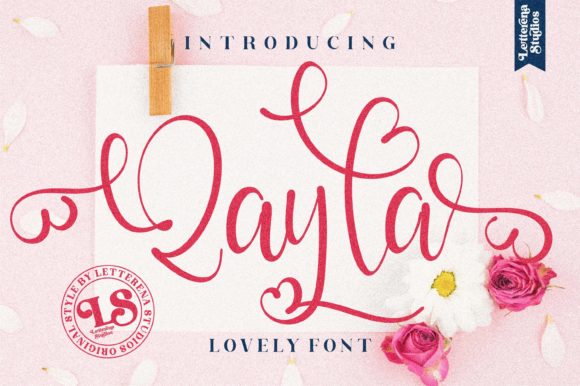
Behold Qayla Font, a captivating handwritten font that will transform your creative vision into a masterpiece. Crafted by the talented hands of Letterena Studios, Qayla embodies the essence of modern elegance and artistic flair.
Immerse yourself in the flowing strokes and delicate curves of Qayla, a script font that breathes life into your words. Experience the joy of crafting personalized invitations, greeting cards, social media posts, and branding designs that exude a touch of sophistication and charm.
With Qayla, the possibilities are endless. Unleash your creativity and turn ordinary projects into extraordinary works of art. This font is your gateway to a world of visual enchantment, where every letter dances with grace and every word carries a story.
Harness the power of Qayla to make a lasting impression on your audience. Whether you're a professional designer or a creative enthusiast, Qayla is your secret weapon to elevate your projects and leave an indelible mark on the hearts of your readers.
Don't settle for ordinary when you can embrace the extraordinary. Embrace Qayla Font today and unlock the door to a world of limitless creative possibilities.